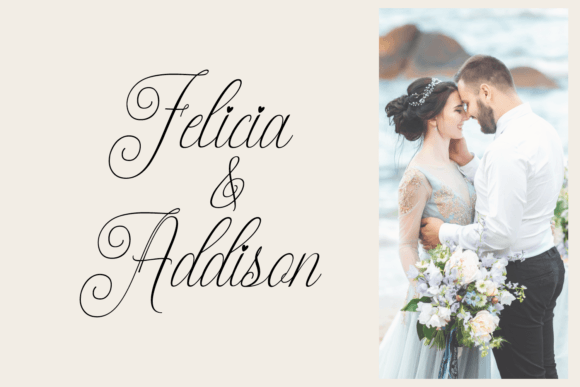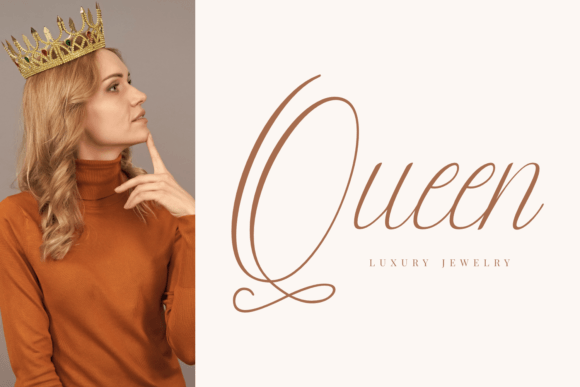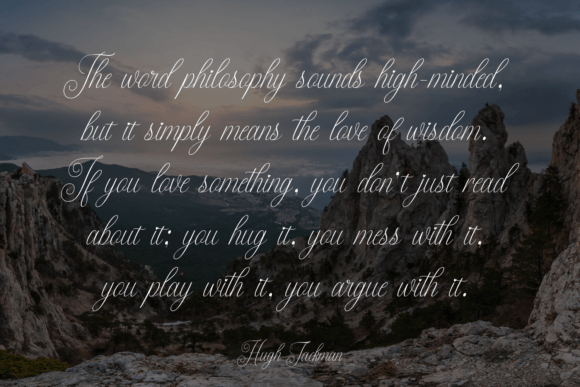
Introduction to Holiday Searching Font
Have you ever been working on a creative project, pouring your heart and soul into every detail, only to realize that the perfect font is missing? You know, that one that can elevate your design from ordinary to extraordinary? This is where the Holiday Searching Font comes in – a high-quality, elegant typeface that exudes sophistication and versatility.
As designers, we’re always on the lookout for the perfect design resource to make our projects stand out. And let’s be honest, a beautiful font can make all the difference. With its classic and timeless appeal, the Holiday Searching Font is a valuable addition to any designer’s toolkit. Plus, with a transparent background, it’s easy to layer and manipulate to fit your creative vision.
Holiday Searching Font
- High-quality design resource ideal for creative projects, including holiday-themed posters, cards, and invitations.
- Comes with a transparent background, allowing for easy integration into various design elements.
- Includes 5 unique font styles, each with a distinct holiday-themed design.
Honest Review: Holiday Searching Font
I recently stumbled upon the Holiday Searching Font, a free download that caught my eye for its festive vibe. As a designer, I’m always on the lookout for high-quality design resources that can elevate my creative projects. This font definitely delivers.
- ✨ The font’s playful, hand-drawn feel adds a touch of whimsy to any design.
- ✨ The transparent background makes it easy to combine with other design elements.
- ✨ The font is highly customizable, allowing for endless variations.
- ⚠️ The font may not be suitable for formal or professional designs due to its casual, festive nature.
- ⚠️ The font’s legibility can be affected by the size and style of the text.
Overall, I’m impressed with the Holiday Searching Font. Its unique design and high-quality feel make it a valuable addition to any design resource library. While it may not be suitable for every project, it’s perfect for adding a festive touch to holiday-themed designs or creative projects.
Holiday Searching Font is ideal for holiday-themed designs, such as Christmas cards, New Year’s Eve invitations, and Halloween decorations. It’s also perfect for creating gift tags, gift boxes, and other packaging materials. With its high-quality design and transparent background, this font is sure to add a touch of creativity to your projects.